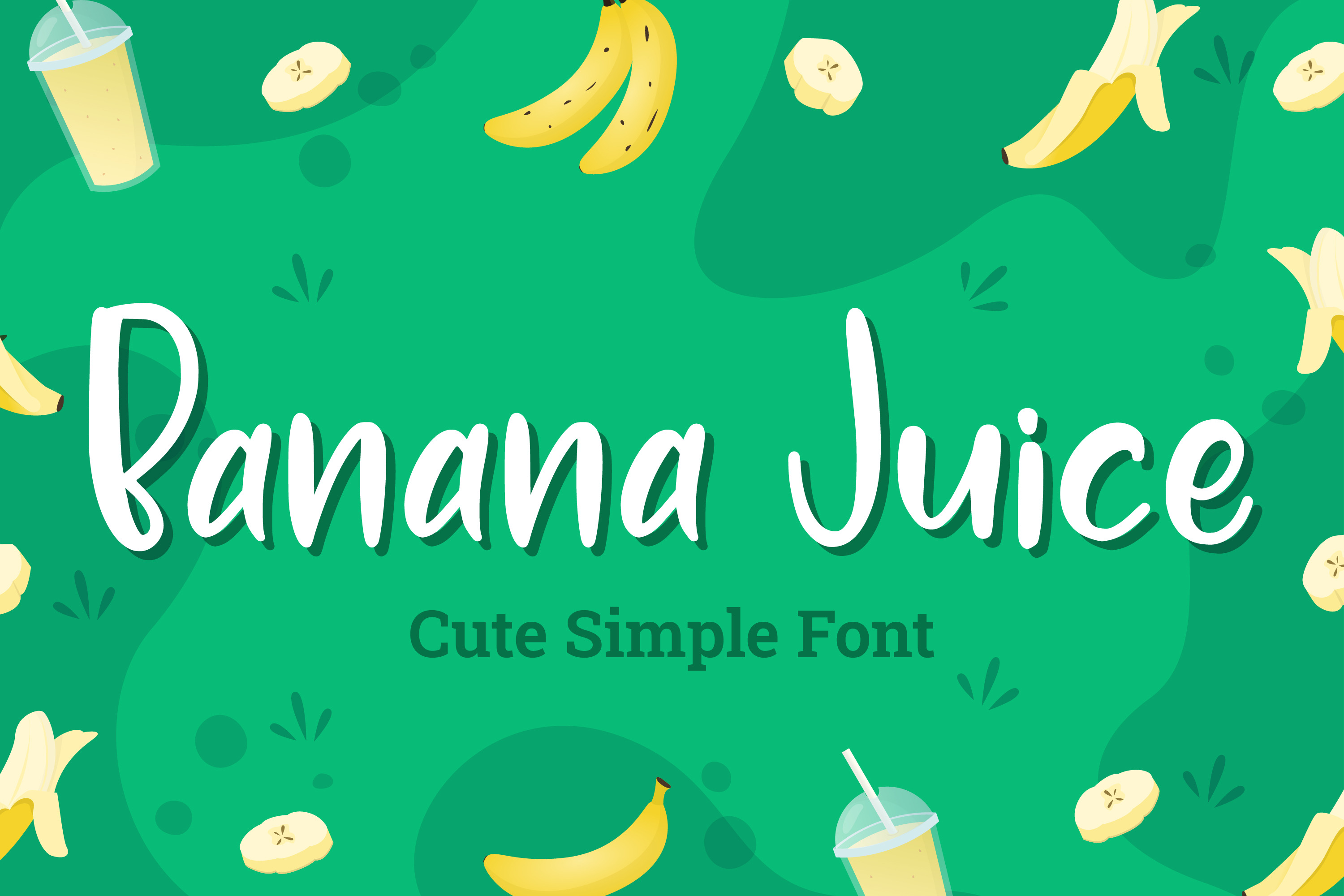
Banana Juice - Cute Simple Font
Banana Juice is a cute & playful font that will make your designs look modern, unique and fun. It’s perfect for labels, quotes, posters, DIY projects, branding, packaging, greeting cards, websites, photography overlays, signs, window art, scrapbooking, tags and so much more!